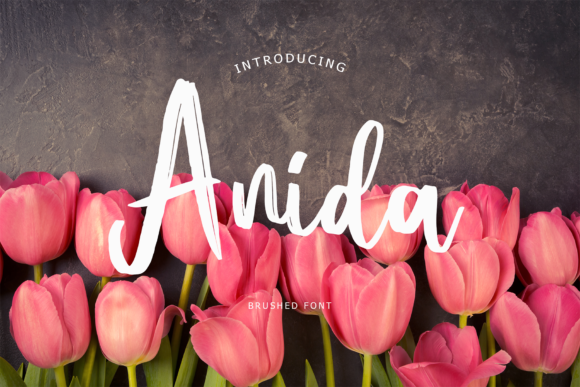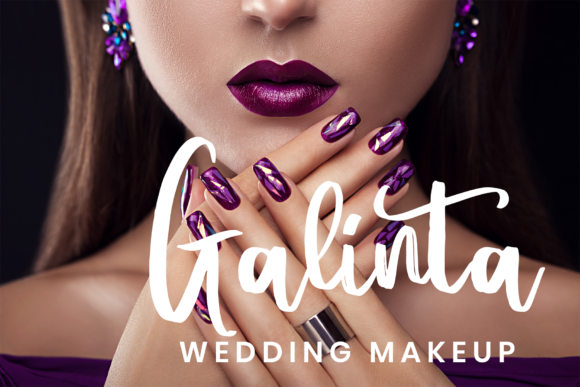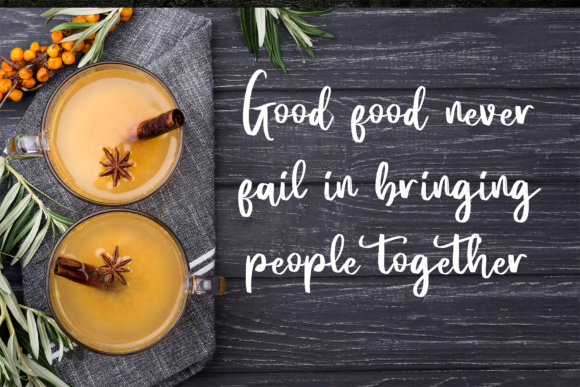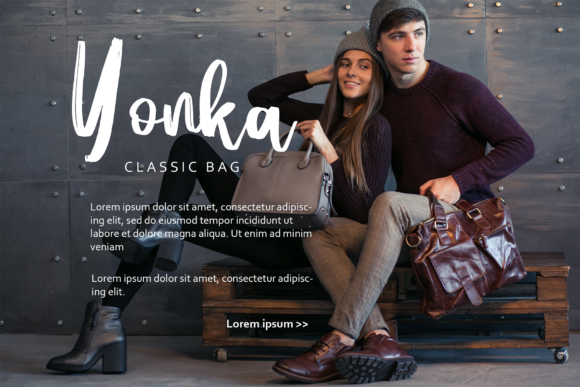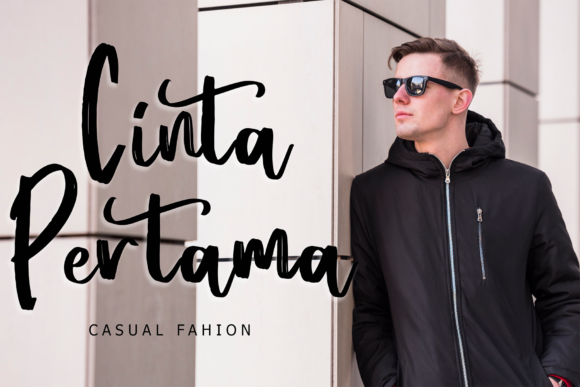
Introducing Anida Font: Elevate Your Designs with Elegance and Flair
Are you on the hunt for a font that exudes elegance, sophistication, and a touch of handmade charm? Look no further than Anida Font, a stunning handwritten typeface created with the help of a brush pen. This versatile font is perfect for designers and crafters seeking to add a personal touch to their projects, from wedding invitations and stationery to social media posts and more.
The Story Behind Anida Font
Anida Font is the brainchild of a meticulous design process, where the goal was to craft a font that would capture the essence of handwritten elegance. By utilizing a brush pen, the creator was able to infuse the font with a sense of organic fluidity, making each letter and word feel like it was written with love and care. The result is a font that is not only beautiful but also incredibly versatile, suitable for a wide range of applications.
Key Features of Anida Font
- Elegant and Flowing Script: Anida Font boasts a smooth, cursive script that flows effortlessly across the page, making it perfect for creating eye-catching headlines and titles.
- Handwritten with a Brush Pen: The use of a brush pen gives Anida Font its unique, organic feel, adding a touch of warmth and personality to any design.
- Versatile Style: Whether you’re designing wedding invitations, crafting social media posts, or creating beautiful stationery, Anida Font adapts seamlessly to any style or theme.
- Easy to Read and Write: Despite its elegant appearance, Anida Font remains highly legible, ensuring that your message is conveyed clearly and effectively.
Creative Applications of Anida Font
Anida Font’s versatility knows no bounds, making it an excellent addition to any designer’s toolkit. Here are just a few ideas to get you started:
- Wedding Invitations and Stationery: Create breathtaking wedding invitations, save-the-date cards, and stationery that sets the tone for a fairytale-like celebration.
- Social Media Graphics: Elevate your social media presence with stunning graphics, quotes, and posts that showcase your brand’s personality and style.
- Branding and Packaging: Use Anida Font to develop a cohesive brand identity that exudes elegance and sophistication, perfect for luxury brands, boutiques, and small businesses.
- Art and Craft Projects: Add a touch of handmade charm to your art and craft projects, such as journals, planners, and DIY decor.
Tips for Getting the Most Out of Anida Font
- Experiment with Colors: Anida Font looks stunning in a variety of colors, from soft pastels to rich jewel tones. Don’t be afraid to experiment and find the perfect hue for your design.
- Play with Pairings: Combine Anida Font with other fonts to create visually appealing contrasts and add depth to your designs.
- Add Decorative Elements: Enhance your designs with decorative elements, such as illustrations, borders, and textures, to give them a unique and personalized touch.
Anida Font is more than just a font – it’s a design solution that can elevate your projects and help you connect with your audience on a deeper level. With its elegant and flowing script, versatile style, and ease of use, Anida Font is an excellent choice for designers and crafters seeking to add a touch of handmade charm to their work. So why wait? Fall in love with Anida Font and discover a world of creative possibilities at your fingertips.